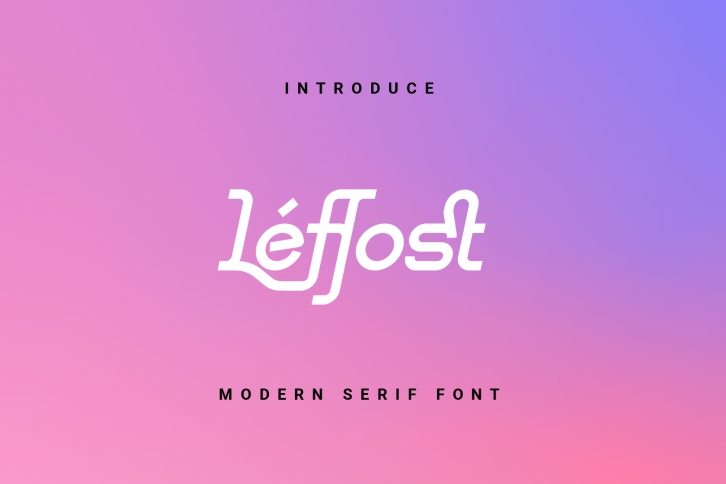
Leffost is a vintage styled, adaptable and cool display font. This font is PUA encoded which means you can access all of the glyphs and swashes with ease!Â